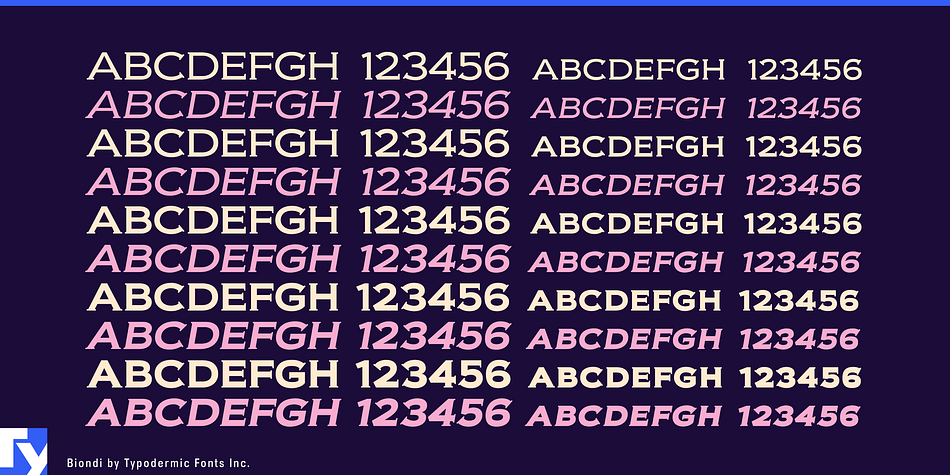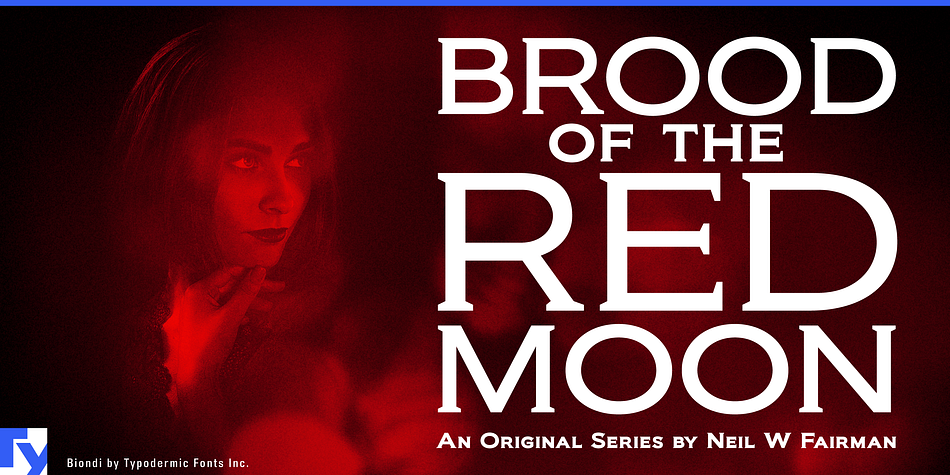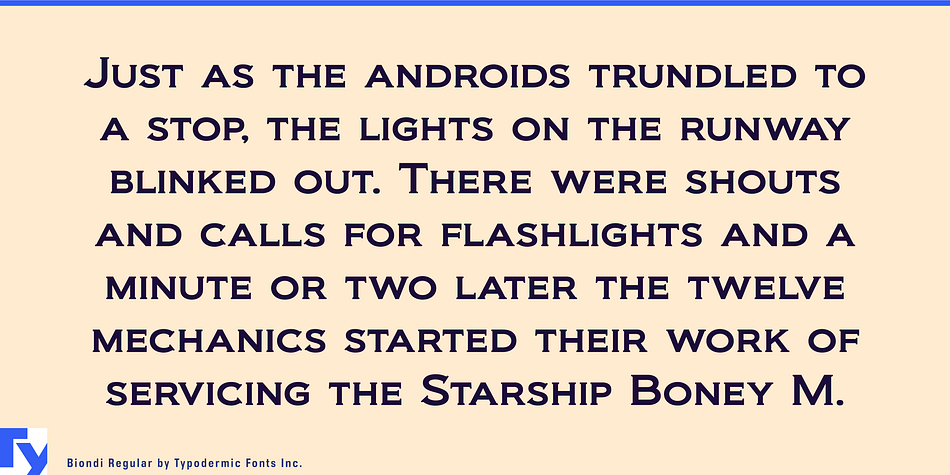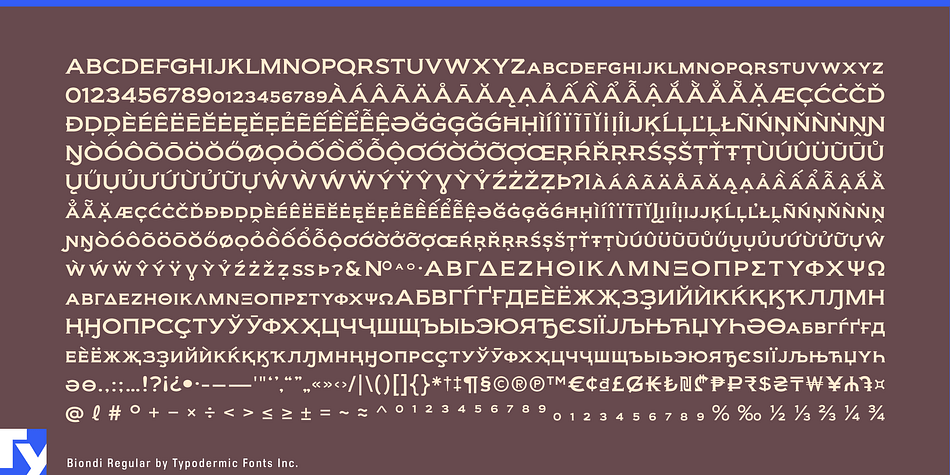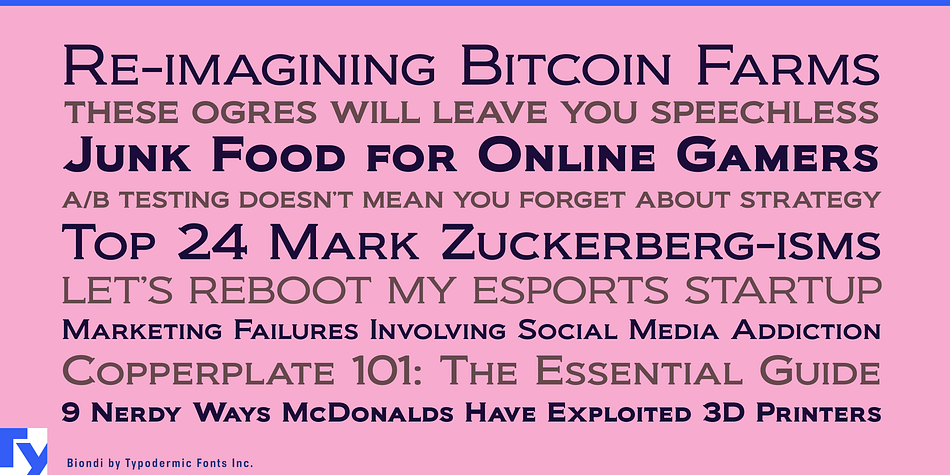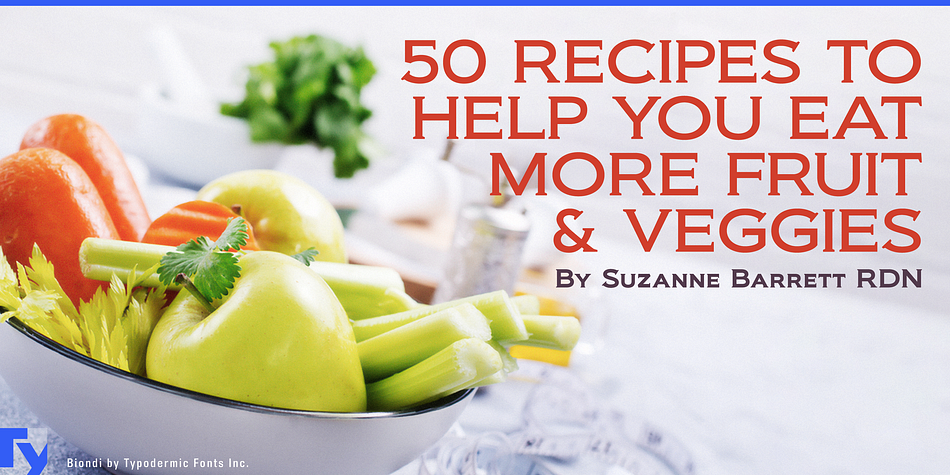
Biondi is a display serif font family. This typeface has ten styles and was published by Typodermic Fonts Inc.
Inspired by Goudy’s original from 1905, Biondi maintains the classic wide, squarish shape that made Copperplate Gothic a design staple. Beefed-up wedge serifs replace delicate hairline serifs to make Biondi stand up to today’s display environment. Selective placement of serifs creates a cleaner-flowing line of text without sacrificing understated seriousness. Biondi is available in 5 weights and italics.